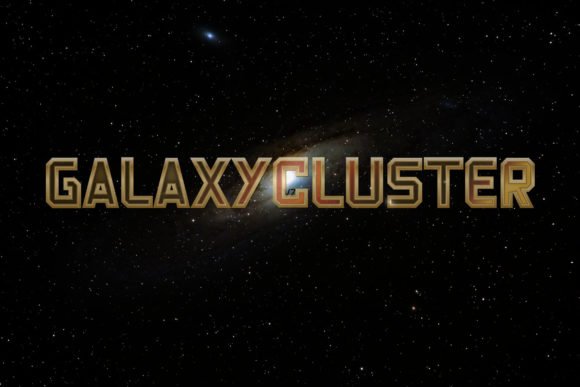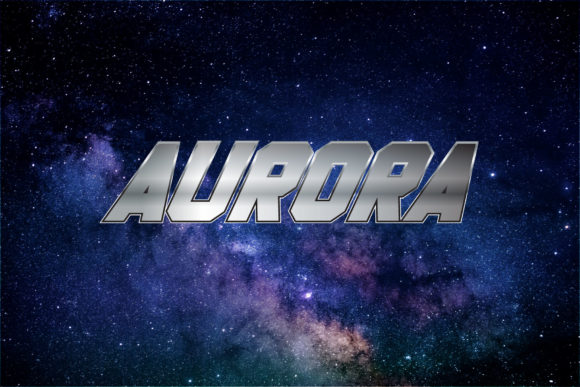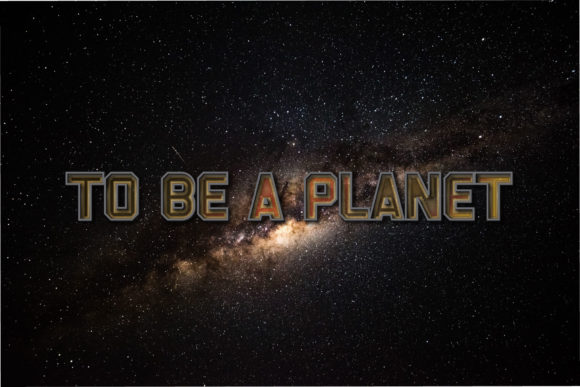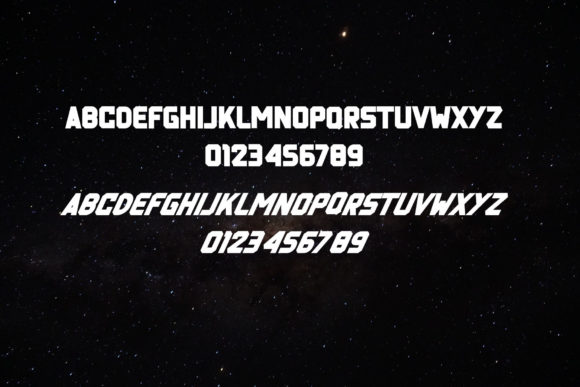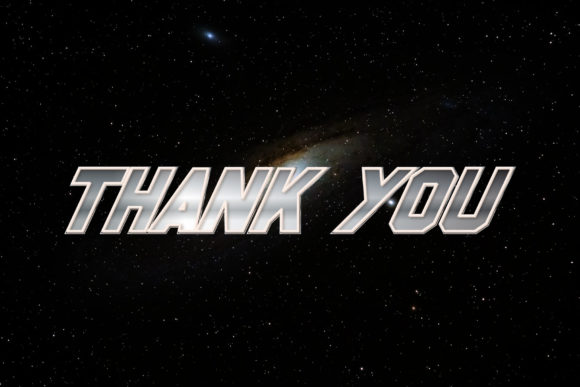
Unlocking the Cosmic Power of Galaxy Cluster Font
Have you ever found yourself lost in the depths of space, surrounded by the endless expanse of stars and galaxies? I know I have, and it’s moments like those that spark the most creative ideas. For designers, these moments can be the catalyst for something truly unique and innovative. And for those who love the fusion of technology and design, the Galaxy Cluster Font is a game-changer.
This bold and robotic display font is perfect for making a statement in web designs, business cards, or any other project that needs a touch of cosmic flair. With its futuristic aesthetic, the Galaxy Cluster Font is an instant conversation starter. Whether you’re a seasoned designer or just starting out, this font is a valuable addition to your toolkit, offering endless possibilities for creative expression.
- Unique Characteristics: Galaxy Cluster Font features a distinctive, hand-crafted design with intricate details, giving it a unique and cosmic feel.
Galaxy Cluster Font Review
Overall, I think the Galaxy Cluster Font has some amazing qualities, but also some areas for improvement.
- Unique design: The font’s blend of futuristic and cosmic elements really stands out.
- High level of customization: The font’s many variations and styles make it perfect for designers who want to add some personality to their projects.
- Great for futuristic and sci-fi projects: The font’s aesthetic is a perfect fit for anything related to space, technology, or the future.
- Limited legibility: At small font sizes, the font can become difficult to read.
- Not suitable for body text: The font is best used for headlines or titles, as it can be overwhelming for large blocks of text.
The Galaxy Cluster Font is a great choice for designers who want to add a touch of futurism to their projects. While it has some limitations, its unique design and high level of customization make it a valuable addition to any designer’s toolkit.
Use Galaxy Cluster Font to add a touch of whimsy and fun to your designs.
It’s perfect for:
Designing posters for space-themed events.
Creating invitations for astronomical parties.
Adding a touch of cosmic flair to your social media graphics.
Experiment with different font sizes and colors to create unique and eye-catching designs.